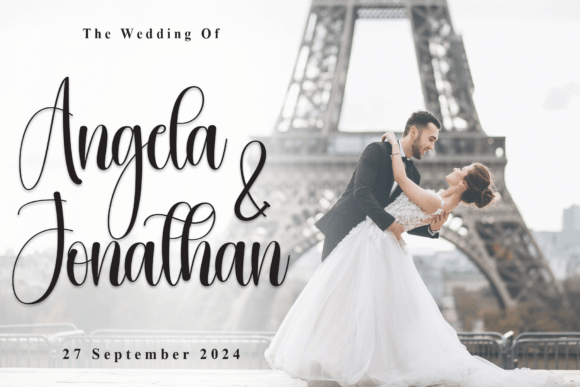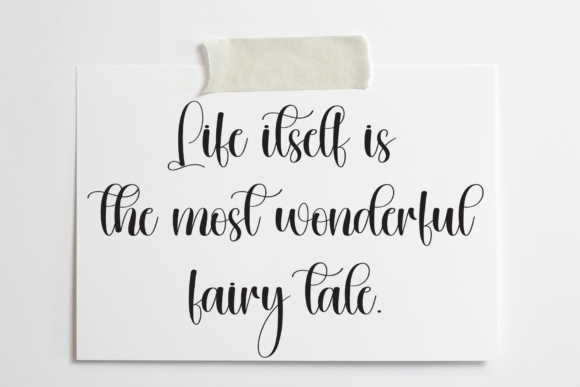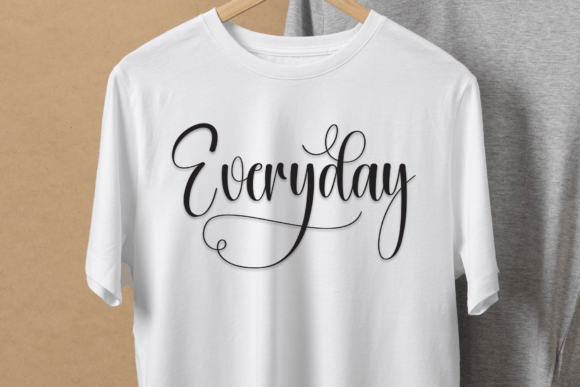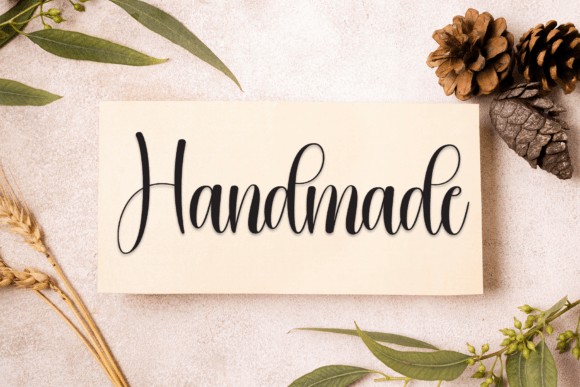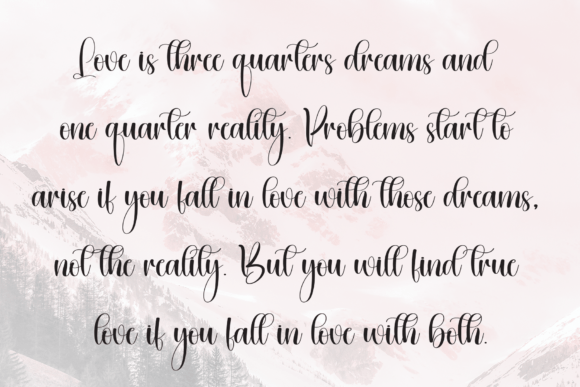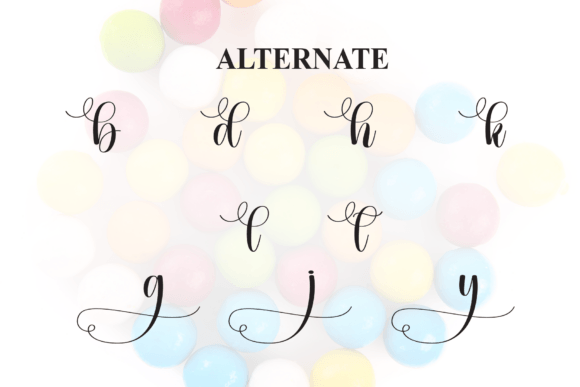
Bubblegum Font: The Sweetest Addition to Your Design Arsenal
Are you tired of using the same old fonts in your designs? Do you want to add a touch of elegance and sophistication to your wedding invitations, greeting cards, and business cards? Look no further than Bubblegum Font, a stylish and incredibly elegant script font that’s sure to make your designs stand out.
What is Bubblegum Font?
Bubblegum Font is a beautiful script font that’s perfect for adding a handwritten touch to your designs. With its flowing curves and delicate lines, this font is sure to evoke a sense of romance and whimsy. Whether you’re designing wedding invitations, thank you cards, or greeting cards, Bubblegum Font is the perfect choice.
Features of Bubblegum Font
So, what makes Bubblegum Font so special? Here are just a few of its key features:
- Elegant and sophisticated: Bubblegum Font is a stylish and elegant script font that’s perfect for designs that require a touch of sophistication.
- Handwritten touch: With its flowing curves and delicate lines, Bubblegum Font adds a handwritten touch to your designs that’s sure to make them stand out.
- Versatile: Bubblegum Font is perfect for a wide range of designs, including wedding invitations, thank you cards, greeting cards, logos, and business cards.
- Easy to read: Despite its elegant and cursive nature, Bubblegum Font is easy to read, making it perfect for designs that require a clear and concise message.
Uses of Bubblegum Font
So, what can you use Bubblegum Font for? The possibilities are endless! Here are just a few ideas to get you started:
- Wedding invitations: Add a touch of elegance and sophistication to your wedding invitations with Bubblegum Font.
- Thank you cards: Express your gratitude in style with Bubblegum Font, perfect for thank you cards and other correspondence.
- Greeting cards: Whether it’s a birthday, anniversary, or holiday, Bubblegum Font is perfect for creating beautiful and eye-catching greeting cards.
- Logos: Add a touch of elegance and sophistication to your logo with Bubblegum Font, perfect for businesses that want to stand out.
- Business cards: Make a lasting impression with Bubblegum Font, perfect for business cards and other marketing materials.
Tips for Using Bubblegum Font
Here are a few tips for getting the most out of Bubblegum Font:
- Use it sparingly: While Bubblegum Font is beautiful, it can be overwhelming if used too much. Use it sparingly to add a touch of elegance and sophistication to your designs.
- Pair it with other fonts: Bubblegum Font pairs well with a variety of other fonts, including sans-serif and serif fonts. Experiment with different pairings to find the one that works best for your design.
- Experiment with colors: Bubblegum Font looks beautiful in a variety of colors, from soft pastels to bold and bright hues. Experiment with different colors to find the one that works best for your design.
In conclusion, Bubblegum Font is a stylish and incredibly elegant script font that’s perfect for adding a handwritten touch to your designs. With its flowing curves and delicate lines, this font is sure to evoke a sense of romance and whimsy. Whether you’re designing wedding invitations, thank you cards, or greeting cards, Bubblegum Font is the perfect choice. So why wait? Download Bubblegum Font today and add a touch of elegance and sophistication to your designs!